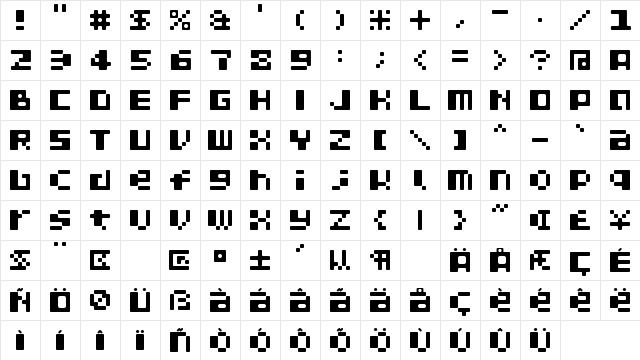
Template 6
Design Context for Template Typeface
Template is a composed and adaptable typeface that performs quietly and consistently across a wide range of design contexts.